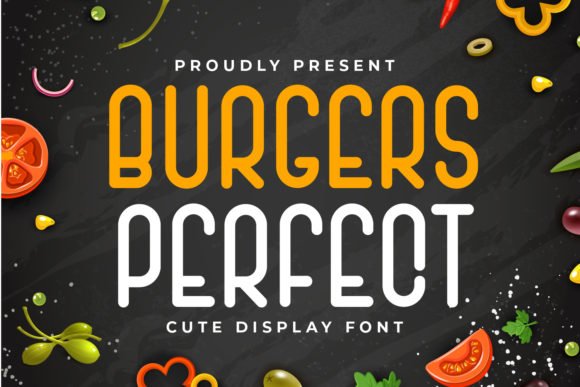
Burger Perfect Font: Elevate Your Designs with a Dash of Quirkiness
There’s something magical about stumbling upon that one perfect font that makes your creative idea shine. You know, that moment when the words flow effortlessly, and the design comes together in a beautiful symphony of typography and color. For designers, finding the right font can be a game-changer, and that’s exactly what we’re excited to introduce you to – the Burger Perfect Font.
This charming display font is more than just a pretty face; it’s a versatile and easy-to-read addition to any project. Whether you’re working on a website, branding, or even a children’s design, the Burger Perfect Font is the perfect companion to bring your ideas to life. With its casual charm and down-to-earth feel, it’s no wonder this font has become a favorite among designers looking to add a touch of whimsy to their work.
Burger Perfect Font Key Features
- Unique Characteristics: Burger Perfect Font features a unique, hand-drawn design with a modern twist, perfect for food-related businesses and brands.
Burger Perfect Font Review
At first glance, Burger Perfect Font seems like the perfect choice for a foodie brand or a restaurant website. Here’s my honest review:
- The font is playful and fun, perfect for capturing a casual dining experience.
- The bold weights are great for headings and titles, adding a touch of sophistication.
- The font is highly legible, even at smaller sizes, making it suitable for menus and content.
- The font may be too casual for more upscale or formal dining establishments.
- The italics and script styles feel a bit too stylized, which may not be suitable for all content.
- The font family is relatively small, with only a few weights and styles available.
Overall, Burger Perfect Font is a solid choice for casual dining brands, but it may not be the best fit for more formal or upscale establishments. With a bit more variation in styles and weights, this font could truly be perfect.
For optimal results, use the Burger Perfect Font in bold or italic styles to add emphasis to your text.
Common use cases include restaurant menus, food blogs, and advertising materials.
Getting the Most Out of Burger Perfect Font
To get the most out of the Burger Perfect Font, use it in conjunction with high-quality images and design elements to create visually appealing materials.
Alternatives to Burger Perfect Font
What is the recommended font size for optimal legibility with the Burger Perfect Font?
For optimal legibility, we recommend using the Burger Perfect Font at a minimum size of 12 points for body text and 18 points for headings. However, the ideal font size may vary depending on the specific design context and intended audience. Experiment with different font sizes to find the perfect balance for your project.